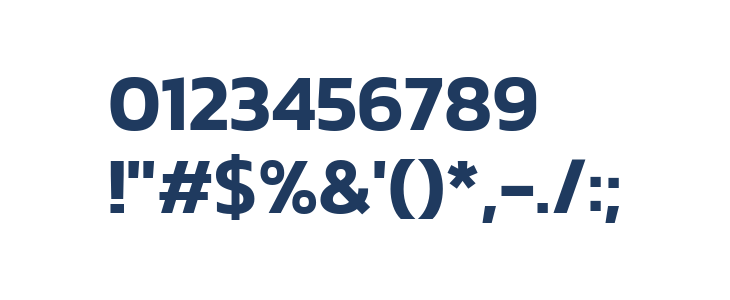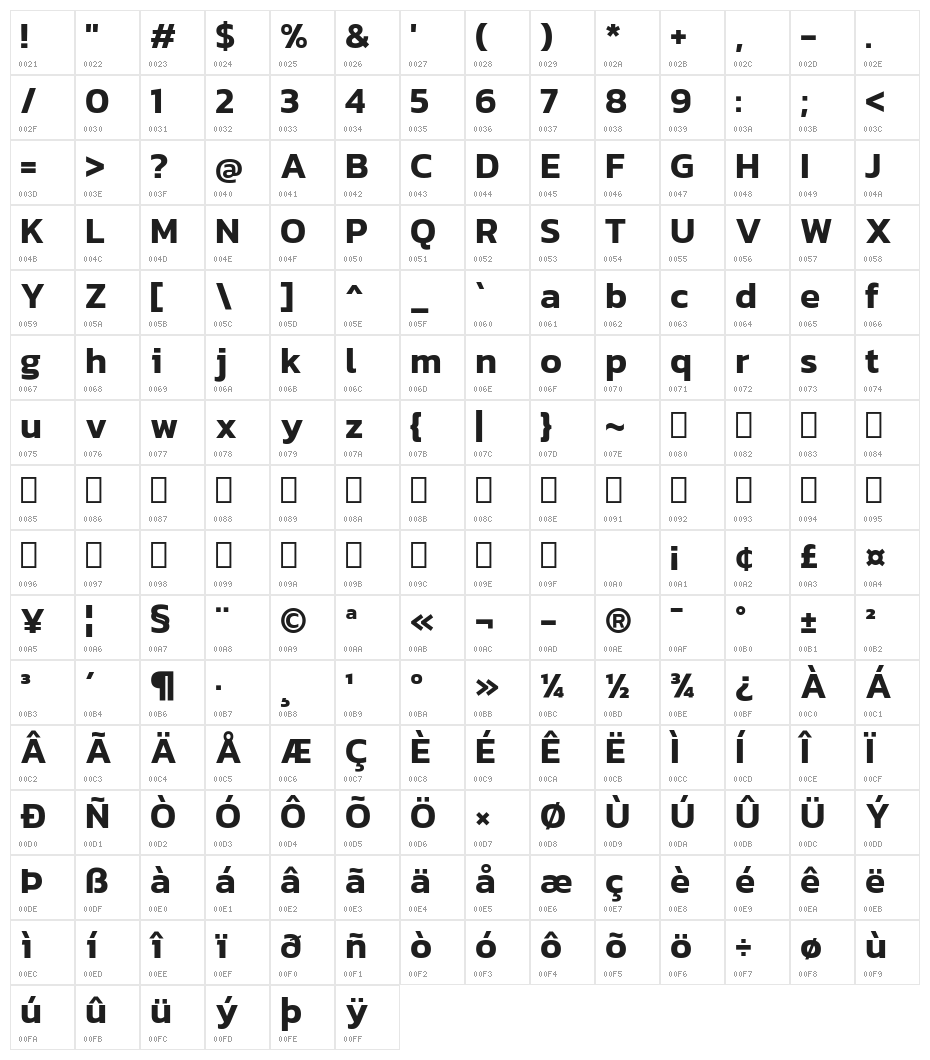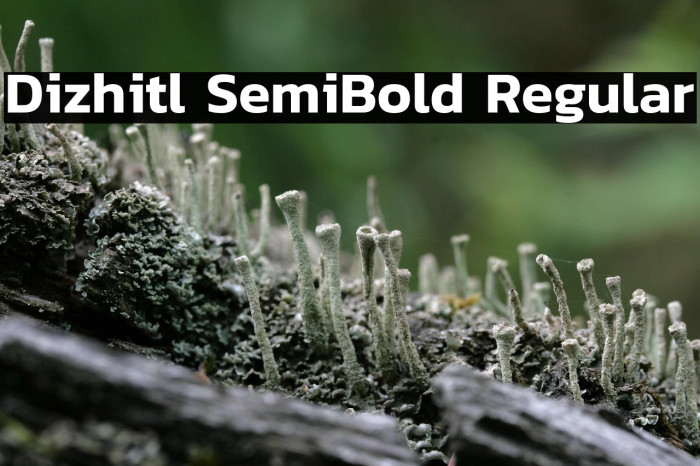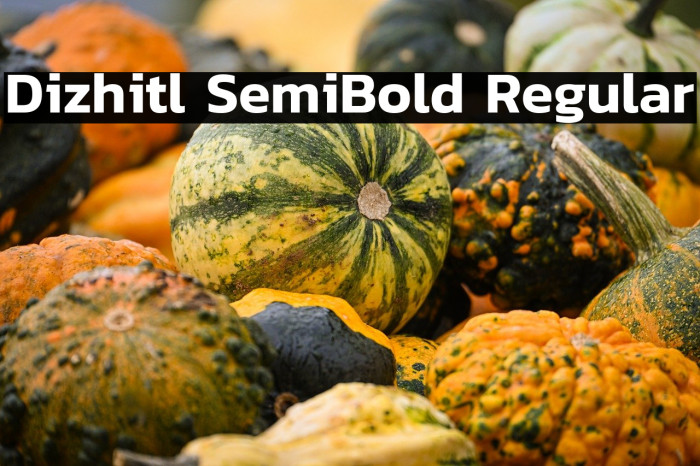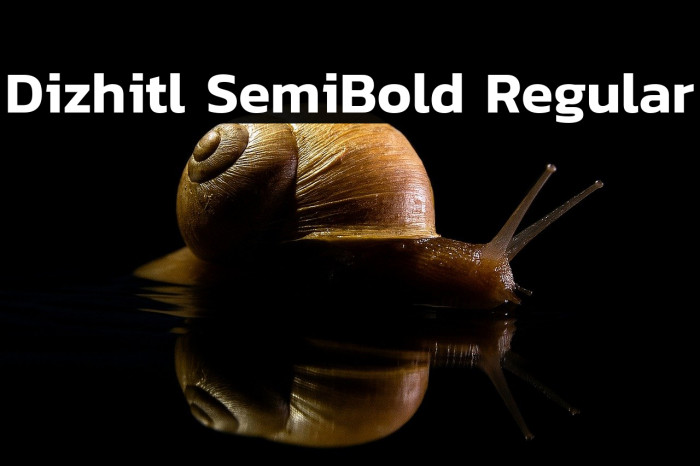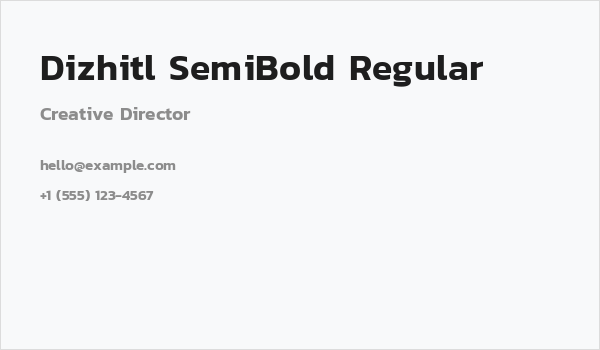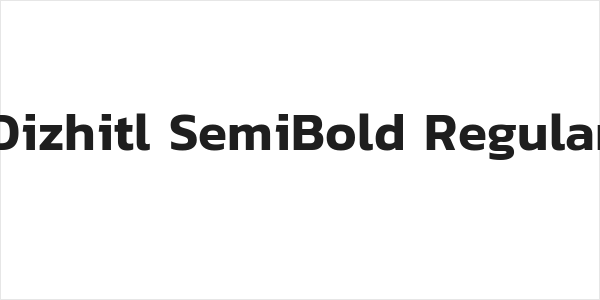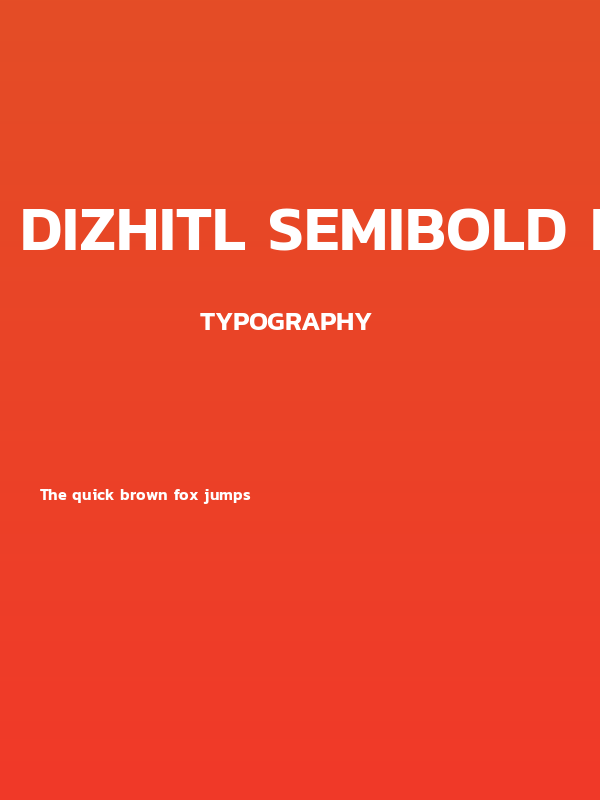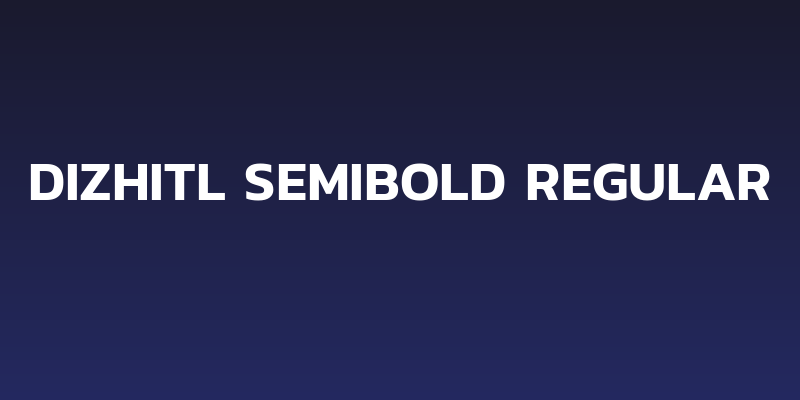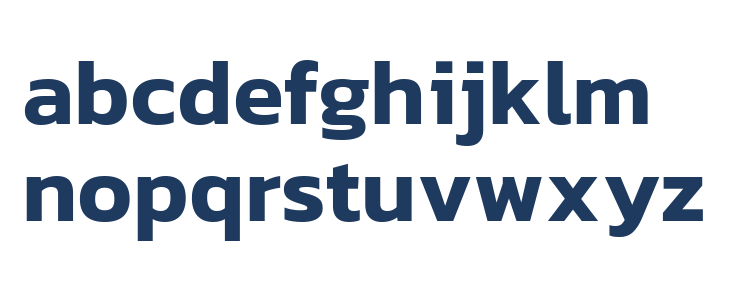
Dizhitl SemiBold Regular Font
Dizhitl SemiBold Regular Description
This font features a bold and modern sans-serif design, characterized by clean lines and a strong presence. The uppercase letters are uniform in height, providing a sense of stability and balance. The lowercase letters maintain a consistent style, with rounded edges that add a touch of softness to the overall appearance. The numerals are clear and easy to read, making them suitable for various applications. Special characters are well-integrated, ensuring versatility in design projects. The font's boldness makes it ideal for attention-grabbing headlines and impactful statements.
| Use Case | Headlines, Logos, Advertising |
| Proposed Projects | Ideal for branding, advertising, headlines, and digital media where a strong and modern look is desired. |